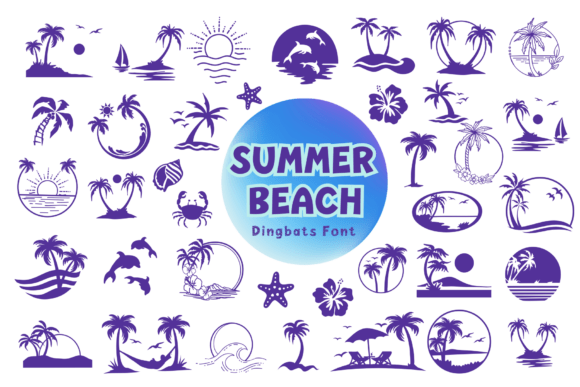
Summer Beach Font
Summer Beach is a collection of tropical silhouettes featuring different palm trees, island scenes, and beach elements. Ideal for summer branding, vacation-themed designs, tropical party invitations, and travel-related artwork, this font brings a breezy and relaxed vibe to any project.